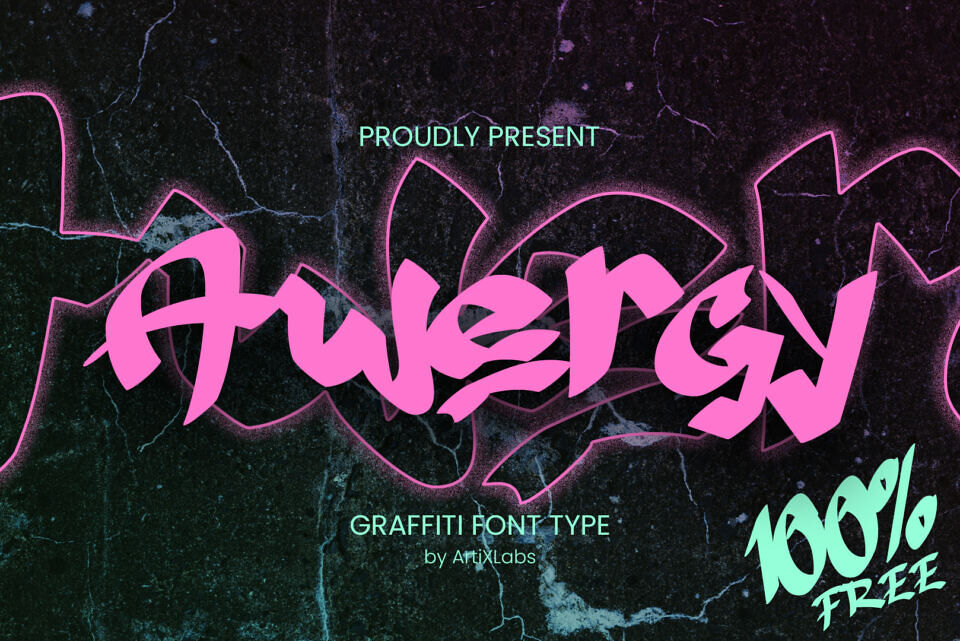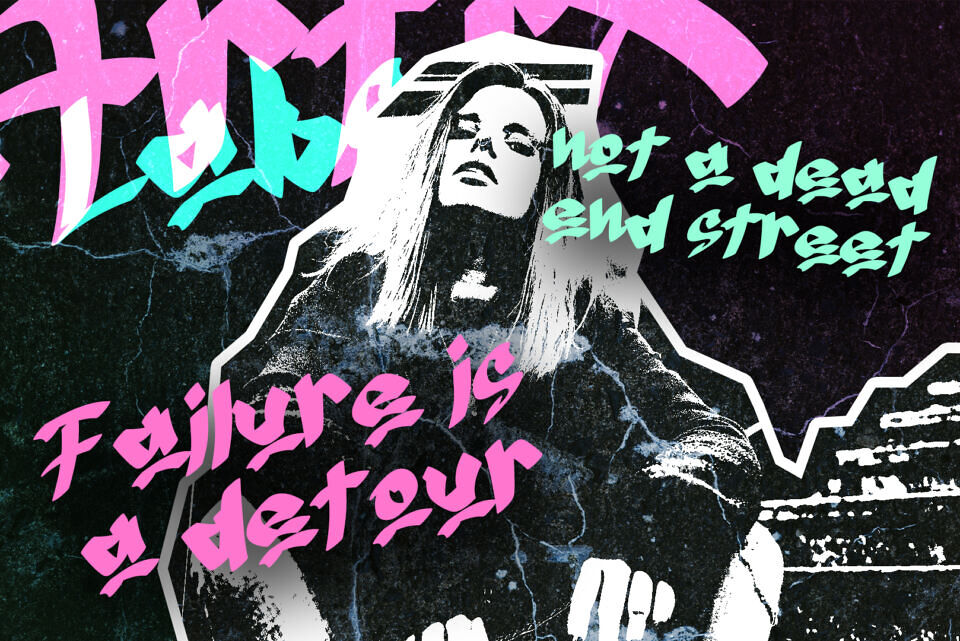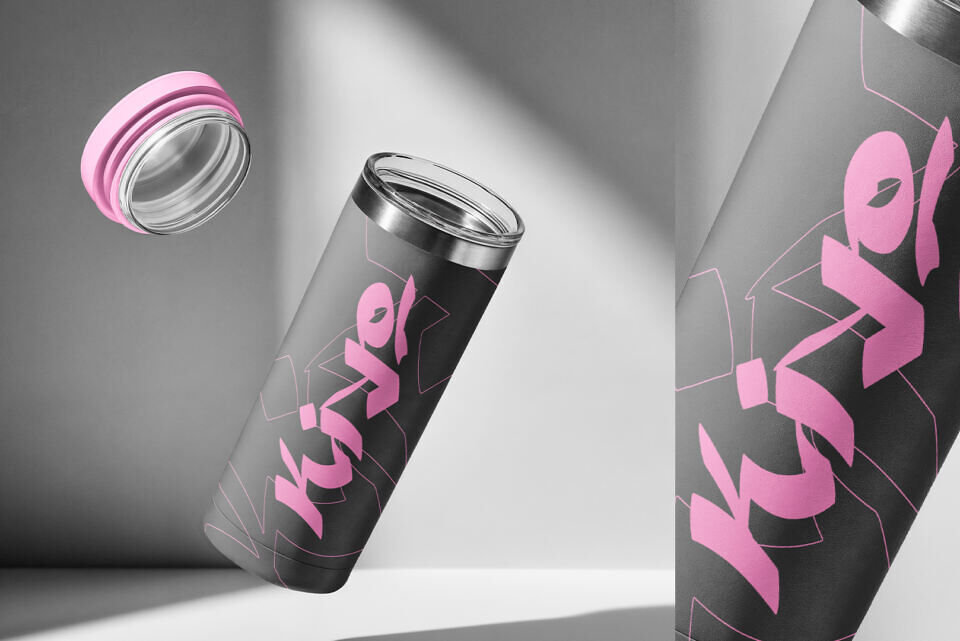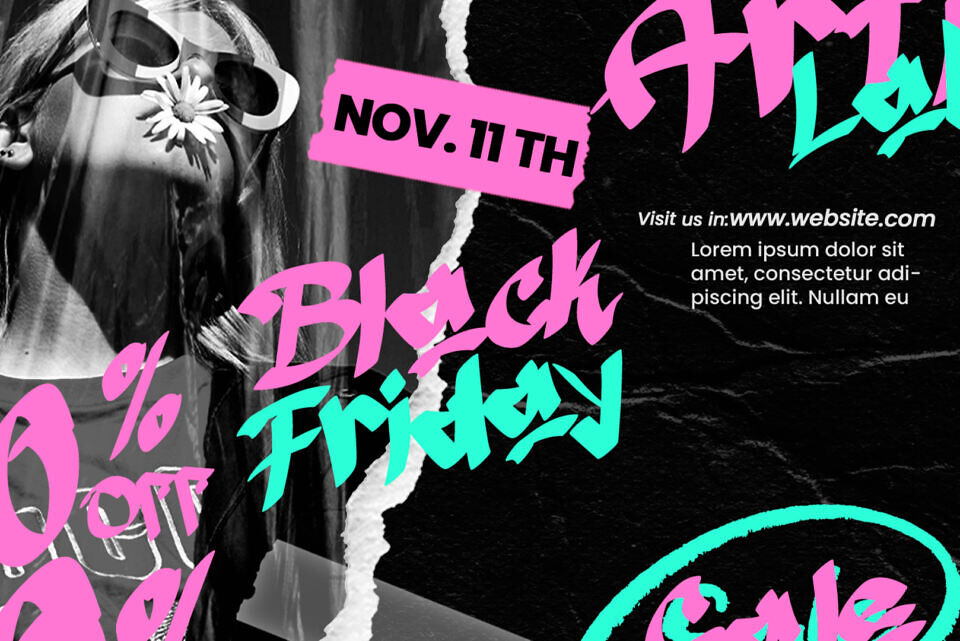
Awergy Font, crafted by ArtiXLabs, is a dynamic graffiti typeface with bold, angular strokes and a fluid, rebellious rhythm. Its sharp, hand-drawn style exudes urban energy, perfect for edgy posters, logos, T-shirts, and social media graphics.
The font’s distinctive, street-inspired aesthetic blends classic graffiti vibes with modern versatility, ideal for impactful branding, packaging, and headlines.